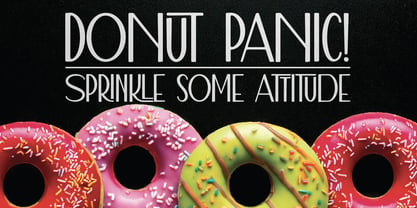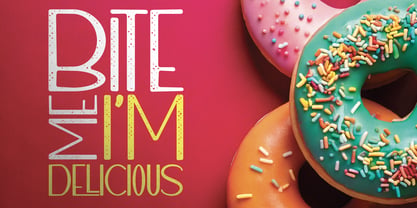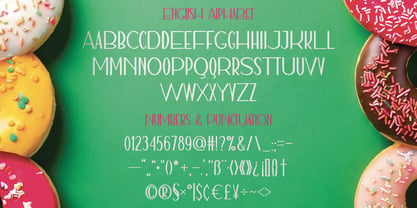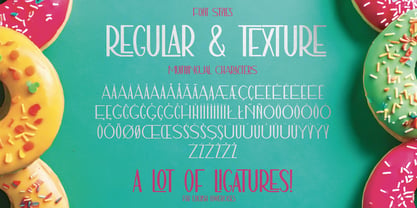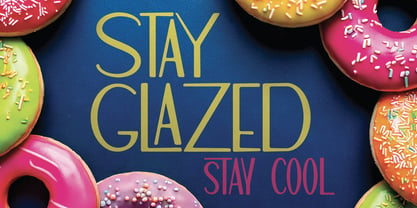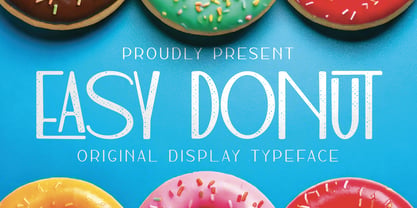
Easy Donut
by Vozzy
The Easy Donut Font Family was designed by Oleg Voznyy and published by Vozzy. Easy Donut contains 2 styles and family package options. More about this family
Introducing the "Easy Donut" font, a distinctive typeface perfect for headlines, accent inscriptions, and capturing attention. This font features a wide array of additional characters, punctuation marks, and multilingual options, along with an extensive selection of standard ligatures—ensure your software supports these OpenType features. "Easy Donut" is designed to enhance your stunning designs, making it an ideal choice for branding, web design, and editorial projects.